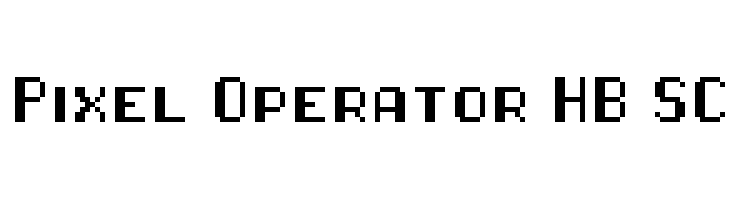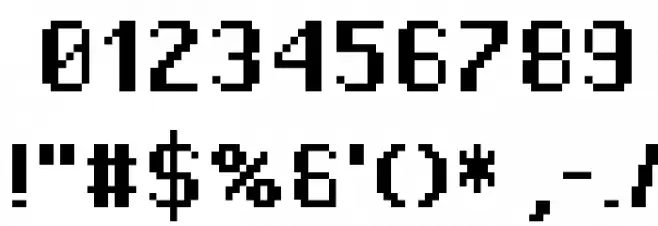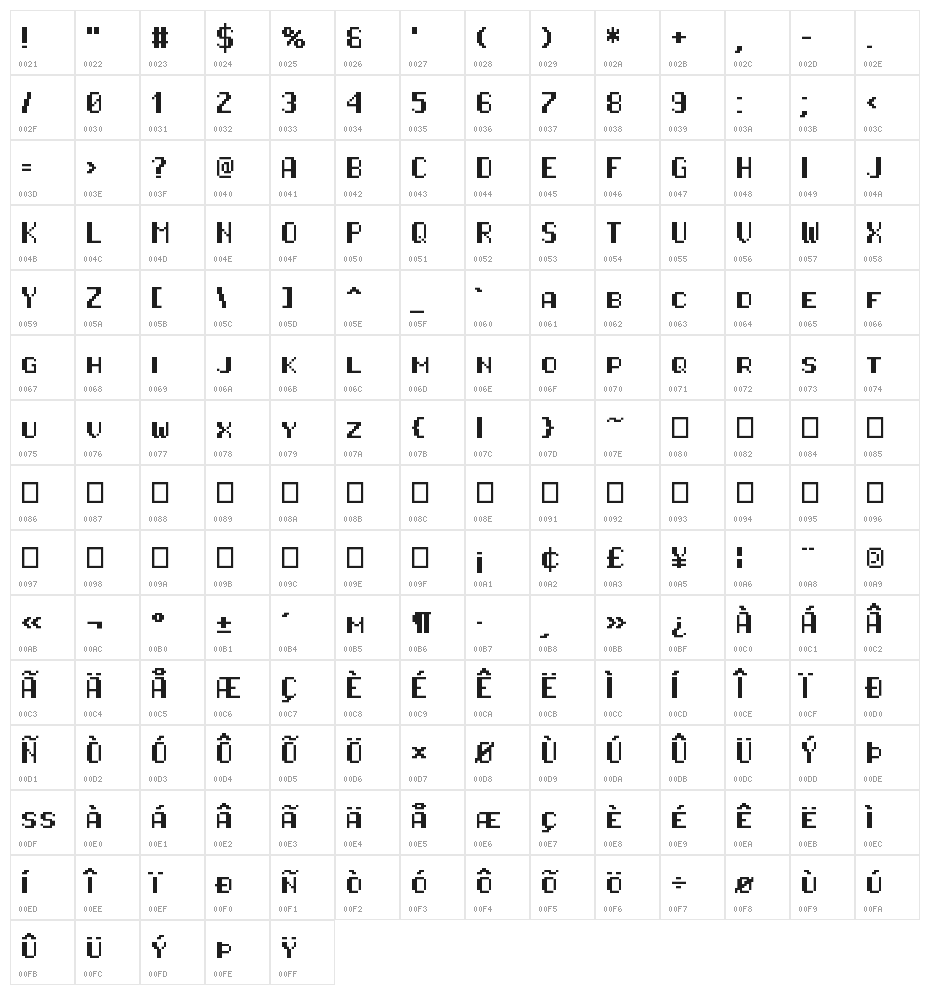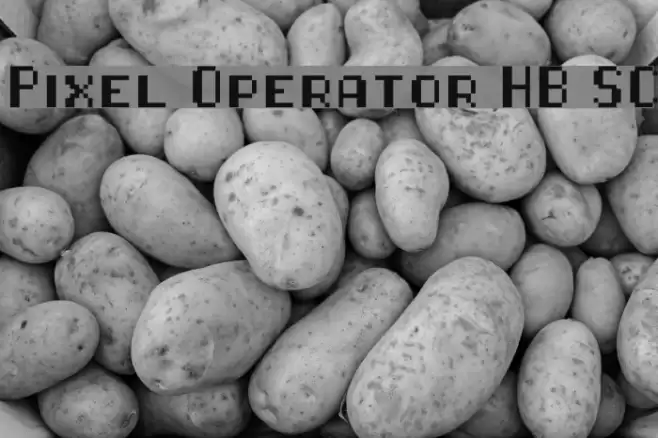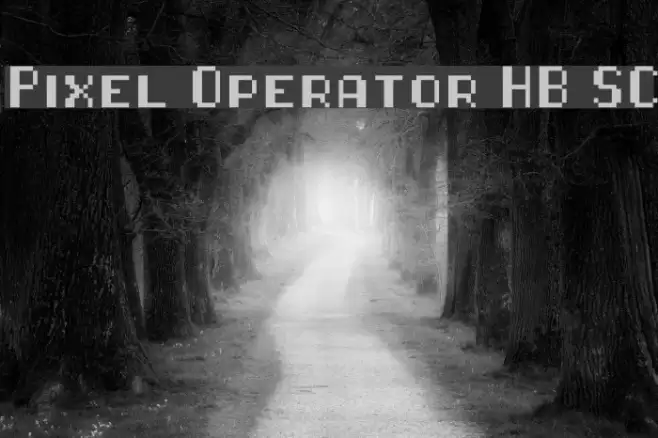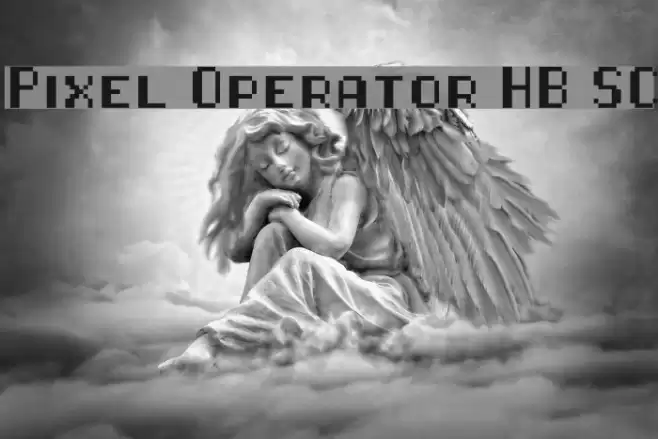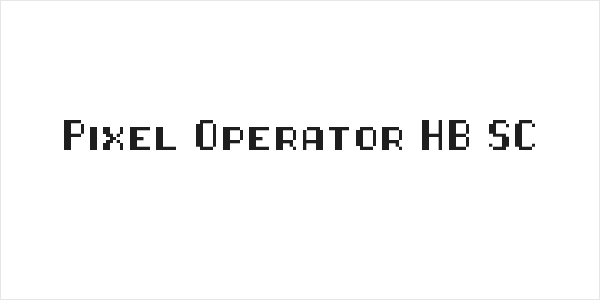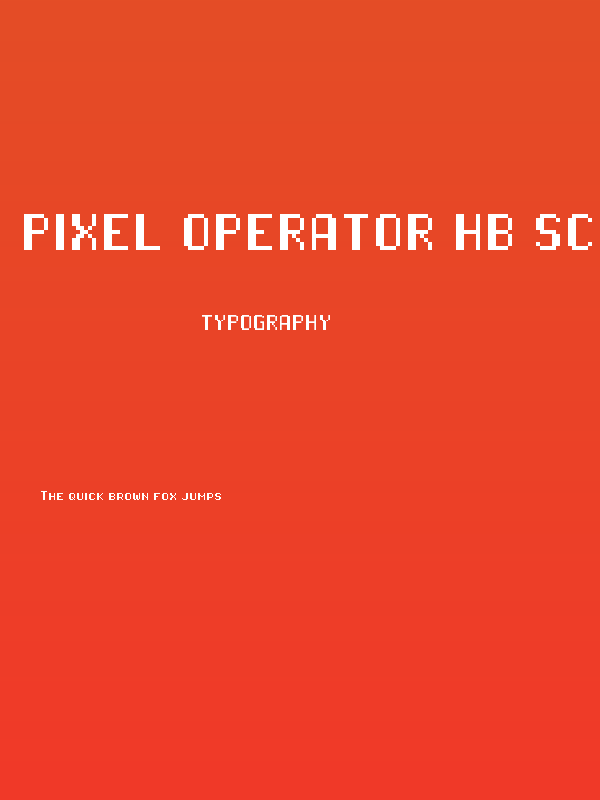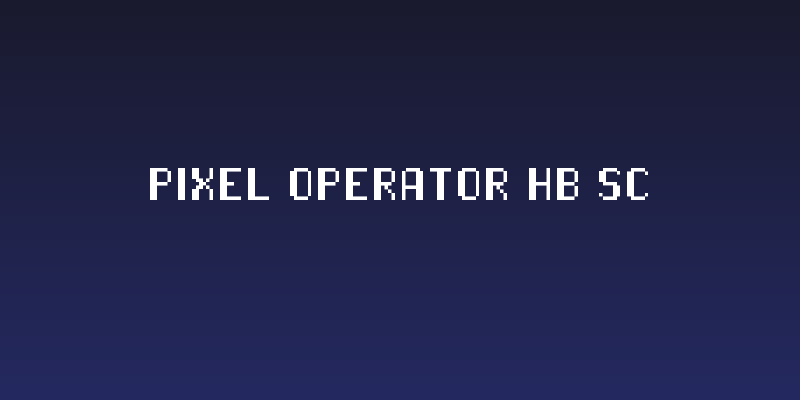
Pixel Operator HB SC Font
Pixel Operator HB SC Description
This font features a pixelated, blocky design reminiscent of classic video game typography. Each character is constructed with a grid-like precision, giving it a retro digital aesthetic. The uppercase and lowercase letters maintain a uniform height, enhancing readability while preserving the nostalgic feel. Numbers and special characters follow the same pixelated style, ensuring consistency across all glyphs. The font's simplicity and clarity make it ideal for projects that aim to evoke a sense of nostalgia or digital minimalism.
| Use Case | Headlines, Logos, Digital displays |
| Proposed Projects | Ideal for video game design, retro-themed graphics, digital art projects, and tech-related branding. |